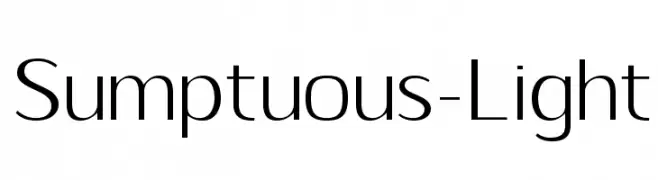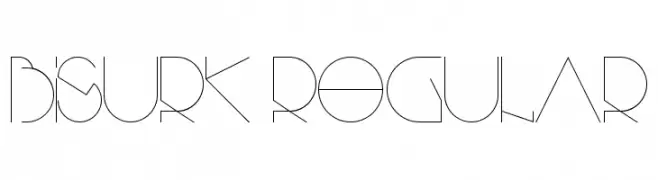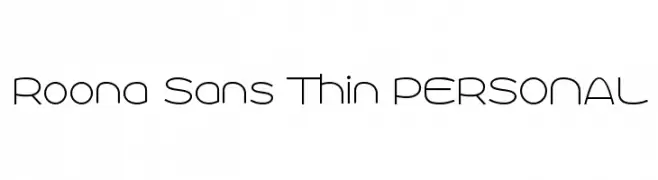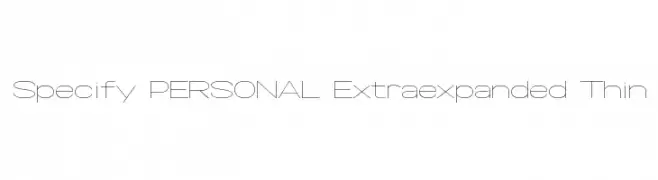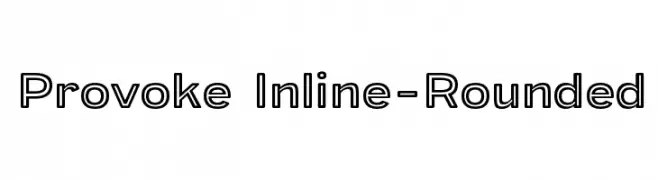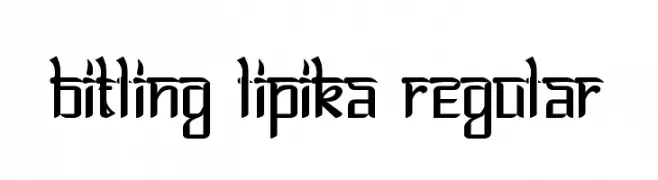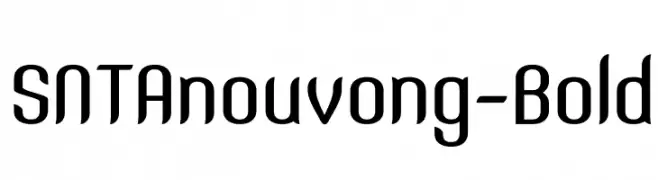
( Locomotype - Arwan Sutanto - www.locomotype.com )
A sleek, modern font with clean lines and a light weight, perfect for contemporary designs.
( Logan Mata - loganmata.com )
A geometric and modern font with clean lines and sharp angles, perfect for contemporary designs.
( Måns Grebäck - www.mansgreback.com )
A modern, thin, and minimalist font with geometric forms.
( Måns Grebäck - www.mansgreback.com )
An ultra-light, extra-expanded font with a sleek, modern design.
( Måns Grebäck - www.mansgreback.com )
An ultra-thin, extra-expanded font with a modern, geometric style.
( Parker Creative - Alan Parker - fontbundles.net/parker-creative )
A modern, rounded inline font with a clean and contemporary style.
( Rajendra Bitling - www.rbitling.com )
A modern, angular font with a futuristic and bold design.
( Ryan Williamson )
A modern serif font with high contrast and sharp serifs, blending elegance with contemporary style.
( Sengkeo Vangxiengvue - www.facebook.com/vangxiengvue )
A modern, sleek font with rounded edges and geometric structure.
( Sengkeo Vangxiengvue - www.facebook.com/vangxiengvue )
A bold, modern font with rounded and straight edges, perfect for contemporary designs.